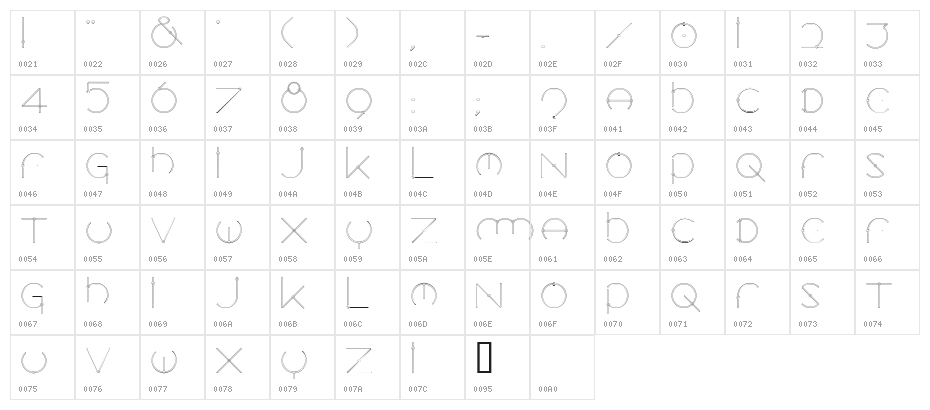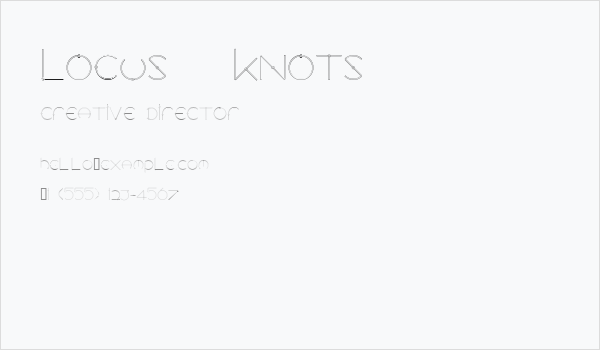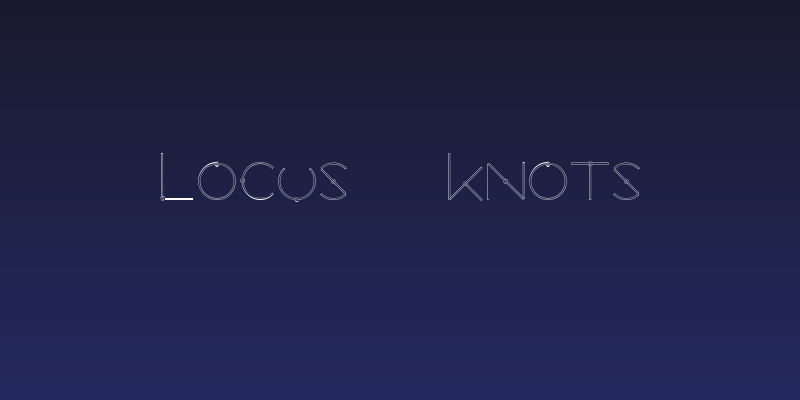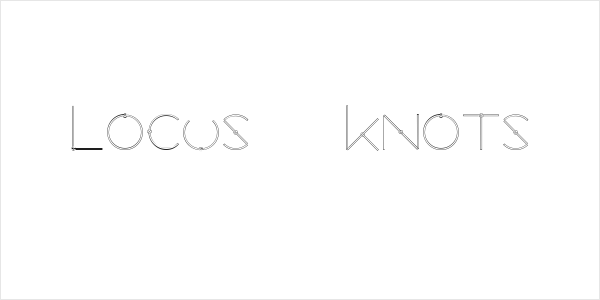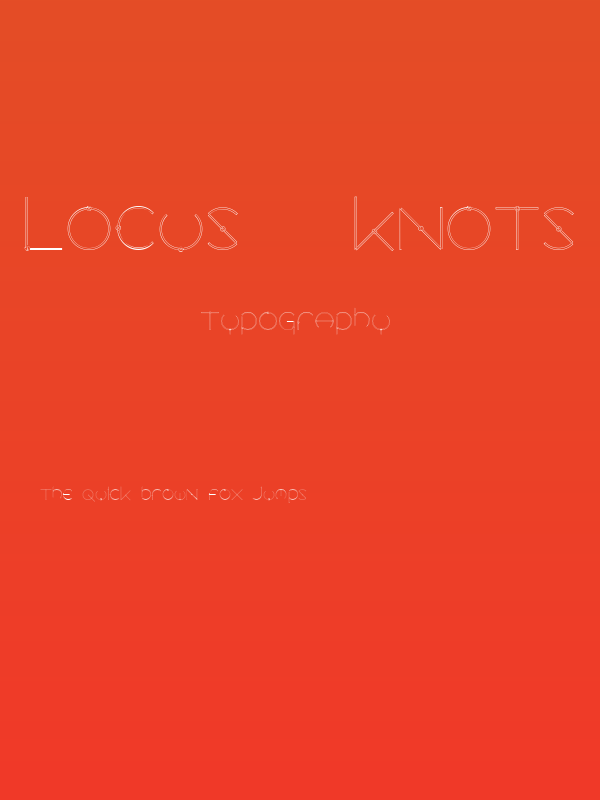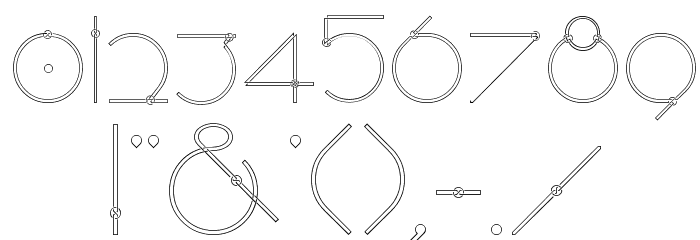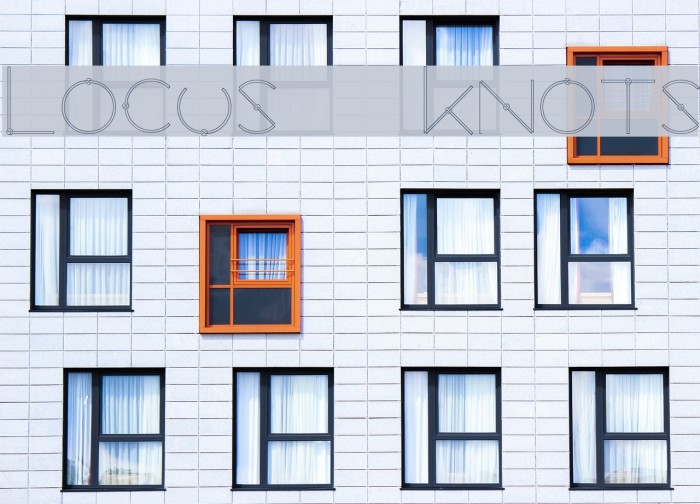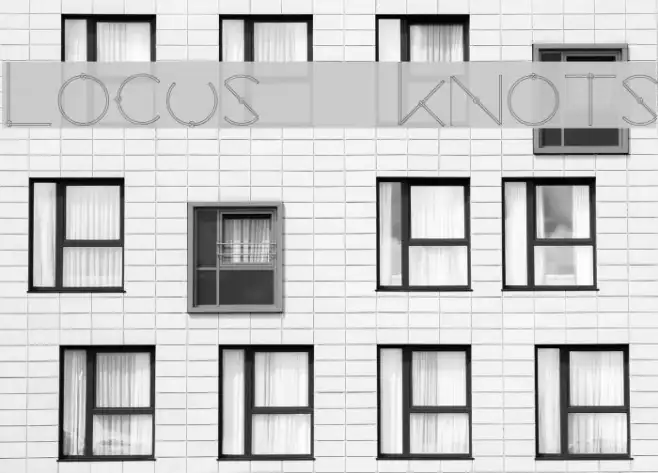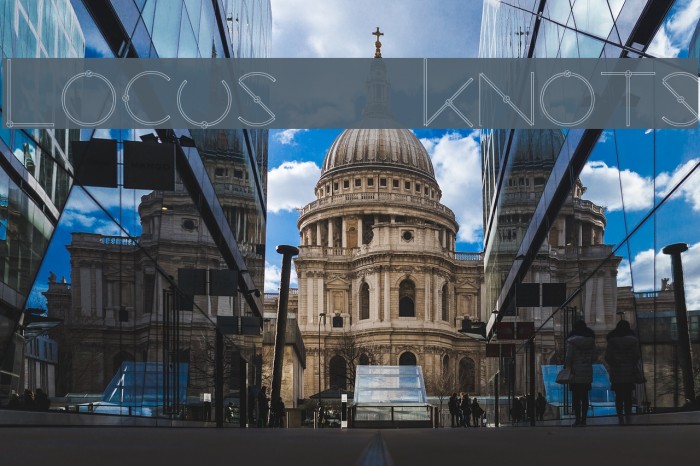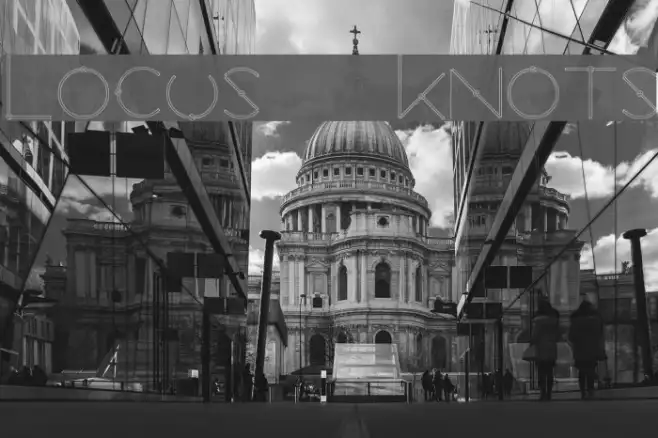
Locus Knots Font
Locus Knots Description
This font features a unique and intricate design, characterized by its use of geometric shapes and interconnected lines that resemble knots. Each character is crafted with a combination of straight lines and curves, creating a sense of movement and complexity. The font maintains a consistent line weight throughout, giving it a uniform appearance. The inclusion of circular elements and intersecting lines adds a decorative touch, making it stand out as a display typeface. Its artistic and modern aesthetic makes it suitable for creative projects where a distinctive and eye-catching font is desired.
| Proposed Projects | Ideal for branding, posters, album covers, and any project requiring a modern and artistic touch. |